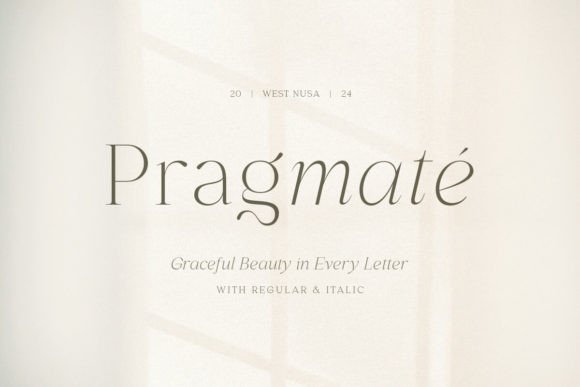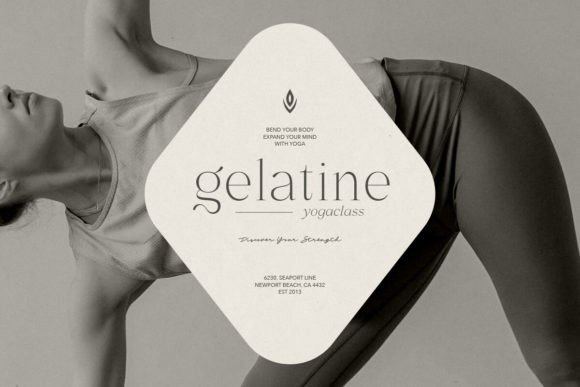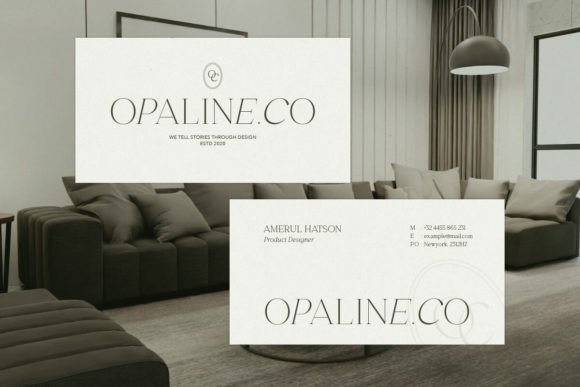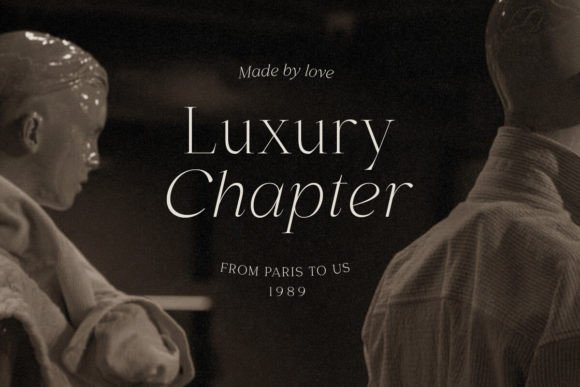
Pragmate Font: Elegant Serif Typography for Modern Logo Design
About the Pragmate Font
Welcome to the world of Pragmate Font, a typeface that will inspire your next great project. Pragmate is a casual and classy light serif font family available in two styles: Regular and Italic. Its clean and simple design makes it versatile for various applications. You can use this font for branding, quotes, logos, or as a complement to your script fonts. Perfect for both digital and print media, Pragmate also supports multiple languages, enhancing its adaptability and reach.
Pragmate’s light and friendly personality makes it ideal for branding projects requiring a touch of casual elegance, particularly logos, short headlines, and packaging design where readability at a glance is key. It works well for invitations and short-form marketing materials. However, its delicate serifs make it less suitable for lengthy body text or UI elements where high legibility is paramount.
Consider pairing Pragmate with a clean sans-serif like Open Sans for body copy to create a balanced and accessible design. For a more playful feel, a rounded geometric sans-serif such as Circle Grotesque could be used. A script font, used sparingly, can add a touch of sophistication, but should be chosen carefully to avoid visual clutter.
Pragmate’s overall aesthetic is best described as approachable and refined, making it a versatile choice for brands seeking a sophisticated yet unpretentious image. Avoid using it in contexts demanding strong visual impact or a highly modern, edgy feel.
Pragmate Font Usage Examples
Pragmate Font Example